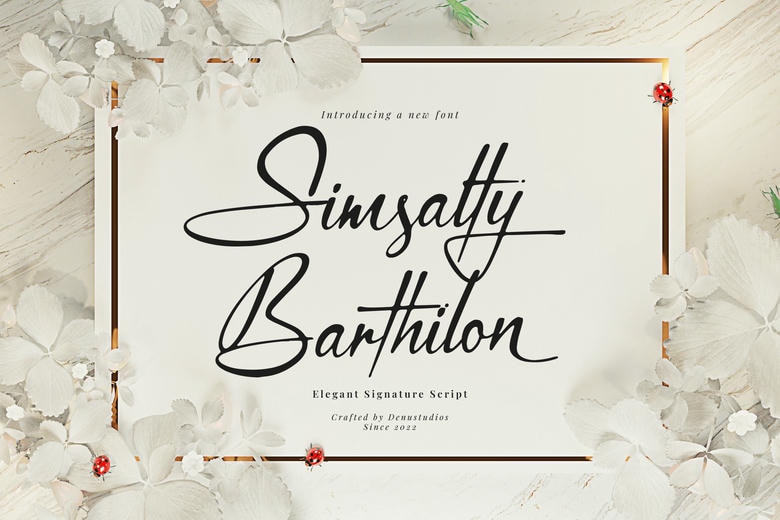
Simsalty Barthilon Font
Simsalty Barthilon is a signature script font that looks like real, high-end handwriting. Its smooth, expressive strokes and elegant details give it the natural grace of a handwritten signature.
This font is a great choice for professional branding, luxury wedding invitations, photography watermarks, and stylish editorial layouts. Its balanced flow and natural look help turn your designs from simple text into something personal and artistic.
Simsalty Barthilon Elegant Signature Font